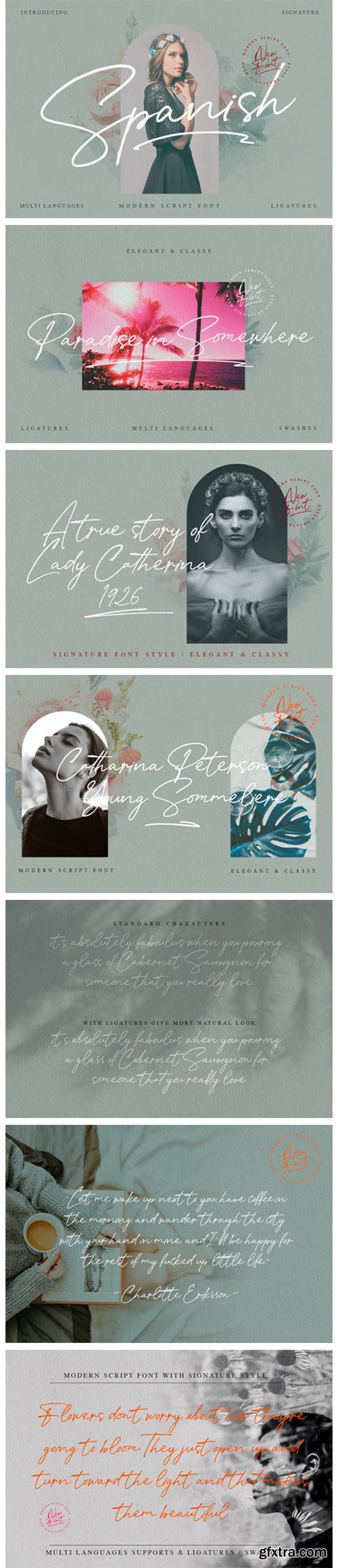
Spanish Font
Spanish is a thin lettered, light weight, delicate script font. This font is neatly crafted and highly detailed. Spanish was particularly created for those who need a beautiful and refreshing look to their designs.